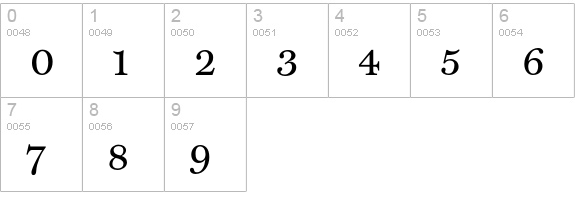
MillerText-RomanSC Font Details
MillerText-RomanSC is a classic and elegant serif font that exudes sophistication and timeless appeal. With its delicate curves and fine lines, this font is perfect for adding a touch of refinement to any design project. Whether you are working on a print publication, website, or branding materials, MillerText-RomanSC will elevate your work to the next level. What sets MillerText-RomanSC apart is not only its beauty, but also the fact that it is freely available to download at FontsMarket.com. This means that you can access this premium font without any cost, making it a valuable addition to your font library. Embrace the beauty and versatility of MillerText-RomanSC in your next project and see how it transforms your design into a work of art.